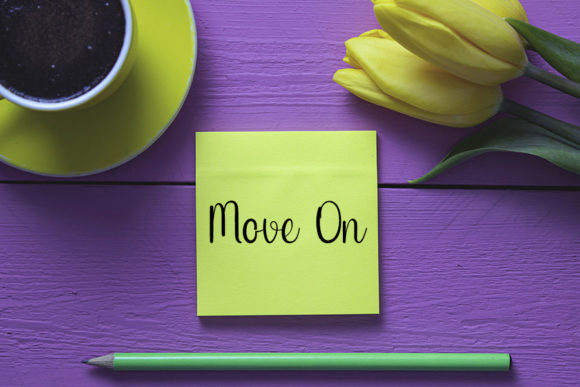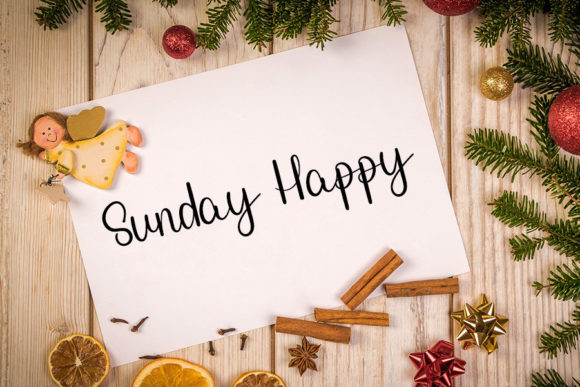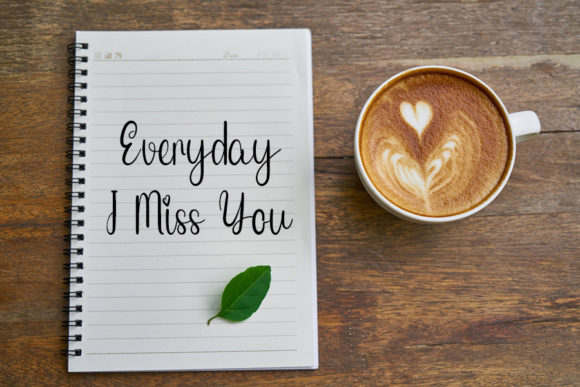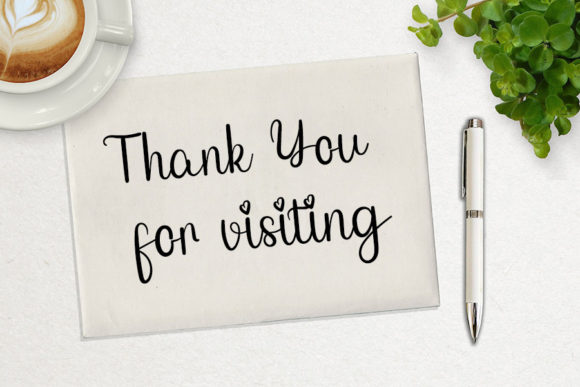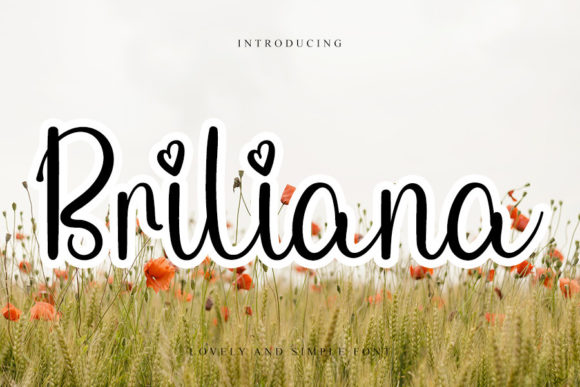
Introducing Briliana Font: The Playful and Smart-Looking Handwritten Font
Are you a designer or crafter looking for a unique and eye-catching font to elevate your creative projects? Look no further than Briliana Font! This playful and smart-looking handwritten font is the perfect choice for creating stunning logos, branding, and quotes that will capture the attention of your audience.
The Unique Characteristics of Briliana Font
Briliana Font is a one-of-a-kind handwritten font that boasts a friendly and approachable touch. Every letter has been carefully crafted to have a unique personality, making it perfect for designs that require a personal and human touch. The font’s playful and smart look makes it versatile enough to be used in a wide range of creative projects, from logos and branding to quotes and social media graphics.
The Ideal Choice for Designers and Crafters
Briliana Font is the ideal choice for designers and crafters who want to add a touch of personality to their work. Whether you’re creating a logo for a new business, designing a social media graphic, or crafting a quote for a client’s wall, Briliana Font is the perfect choice. Its unique and friendly touch will make your design come alive and leave a lasting impression on your audience.
Key Features of Briliana Font
- Playful and smart-looking: Briliana Font has a unique and eye-catching appearance that will make your design stand out.
- Handwritten with a personal touch: Every letter has been carefully crafted to have a friendly and approachable touch.
- Versatile: Briliana Font can be used in a wide range of creative projects, from logos and branding to quotes and social media graphics.
- Easy to read: Despite its playful appearance, Briliana Font is easy to read and understand, making it perfect for designs that require a clear message.
How to Use Briliana Font in Your Designs
Using Briliana Font in your designs is easy! Here are a few tips to get you started:
- Pair it with a bold font: Briliana Font looks great when paired with a bold font. Try pairing it with a sans-serif font for a modern and edgy look.
- Use it for headings and titles: Briliana Font is perfect for headings and titles. Its playful and smart-looking appearance makes it a great choice for grabbing the attention of your audience.
- Experiment with colors: Briliana Font looks great in a variety of colors. Experiment with different colors to find the one that works best for your design.
Tips for Getting the Most Out of Briliana Font
Here are a few tips for getting the most out of Briliana Font:
- Use it consistently: Use Briliana Font consistently throughout your design to create a cohesive look.
- Play with font sizes: Experiment with different font sizes to add visual interest to your design.
- Add a personal touch: Use Briliana Font to add a personal touch to your design. Its friendly and approachable appearance makes it perfect for designs that require a human touch.
Briliana Font is a playful and smart-looking handwritten font that is perfect for designers and crafters who want to add a touch of personality to their work. Its unique and friendly touch makes it ideal for creating eye-catching logos, branding, and quotes that will capture the attention of your audience. With its versatility and ease of use, Briliana Font is a great addition to any designer’s toolkit.
Get Creative with Briliana Font!